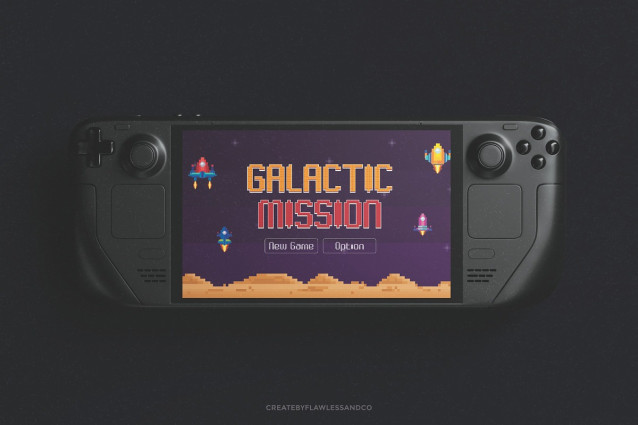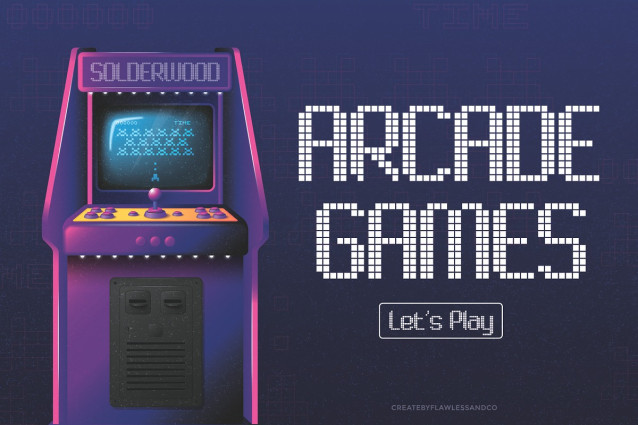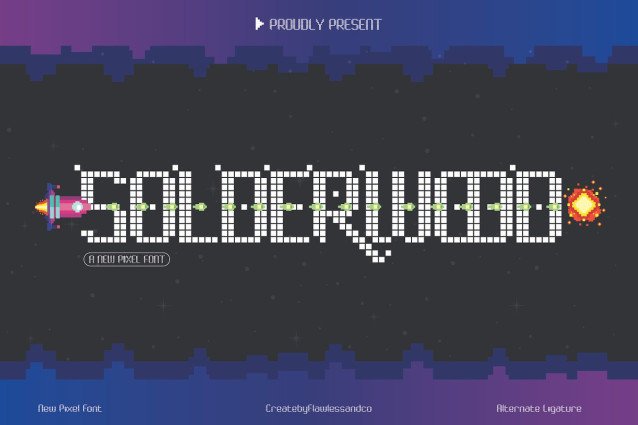
Solderwood Pixel Font
Solderwood Pixel Font is a bold and nostalgic pixel font that captures the charm of classic arcade games and vintage computing. With its blocky, grid-based structure and unmistakable 8-bit style, Solderwood brings retro tech aesthetics to life—perfect for designs that crave a digital, old-school touch. Whether you’re creating game titles, pixel-themed branding, YouTube thumbnails, or event posters, Solderwood delivers sharp, clean letterforms that stay true to the golden era of gaming. Every character is carefully crafted to ensure readability while maintaining an authentic pixel-art look, making it ideal for both screen and print.
This font doesn’t just hint at the past—it celebrates it. Solderwood gives designers the tools to build visuals that feel fun, nostalgic, and full of character.